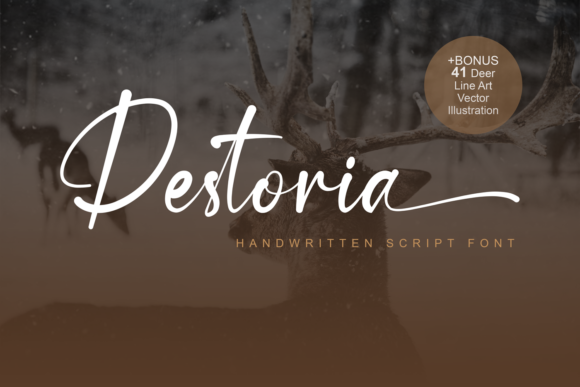
Destoria Font: Elevate Your Designs with a Lovely and Relaxed Handwritten Font
What is Destoria Font?
Destoria is a lovely and relaxed handwritten font that is perfect for a variety of design projects. It has a gentle and beautiful flow, making it ideal for creating elegant and sophisticated designs. Whether you’re working on a branding project, a website, or a marketing campaign, Destoria is a great choice.
One of the standout features of Destoria is its PUA (Private Use Area) encoding. This means that you can access all of the glyphs and swashes with ease, giving you complete control over the font and allowing you to create unique and customized designs.
Benefits of Using Destoria Font
- Elegant and sophisticated designs: Destoria has a beautiful, flowing script that is perfect for creating elegant and sophisticated designs.
- Easy to use: With PUA encoding, you can access all of the glyphs and swashes with ease, making it simple to create customized designs.
- Versatile: Destoria is a versatile font that can be used for a variety of design projects, from branding and websites to marketing campaigns and more.
- Unique and creative designs: With Destoria, you can create unique and creative designs that stand out from the crowd.
Design Tips for Using Destoria Font
- Pair with a sans-serif font: Destoria looks great when paired with a sans-serif font, such as Arial or Helvetica.
- Use for headings and titles: Destoria is perfect for headings and titles, as it adds a touch of elegance and sophistication to your designs.
- Experiment with swashes: With PUA encoding, you can experiment with different swashes and glyphs to create unique and customized designs.
- Keep it simple: Don’t overdo it with too many design elements. Keep your design simple and let Destoria shine.
Font Specifications
- Font type: Handwritten script font
- Encoding: PUA (Private Use Area)
- Glyphs and swashes: Access to all glyphs and swashes with ease